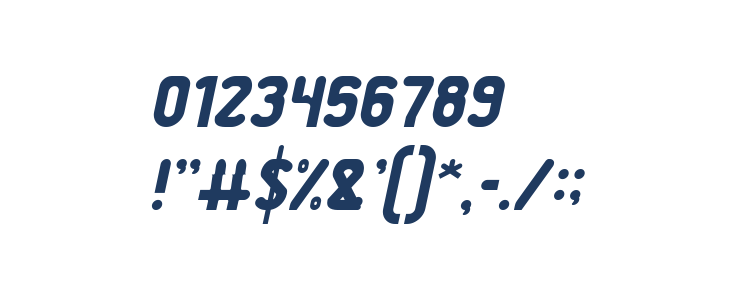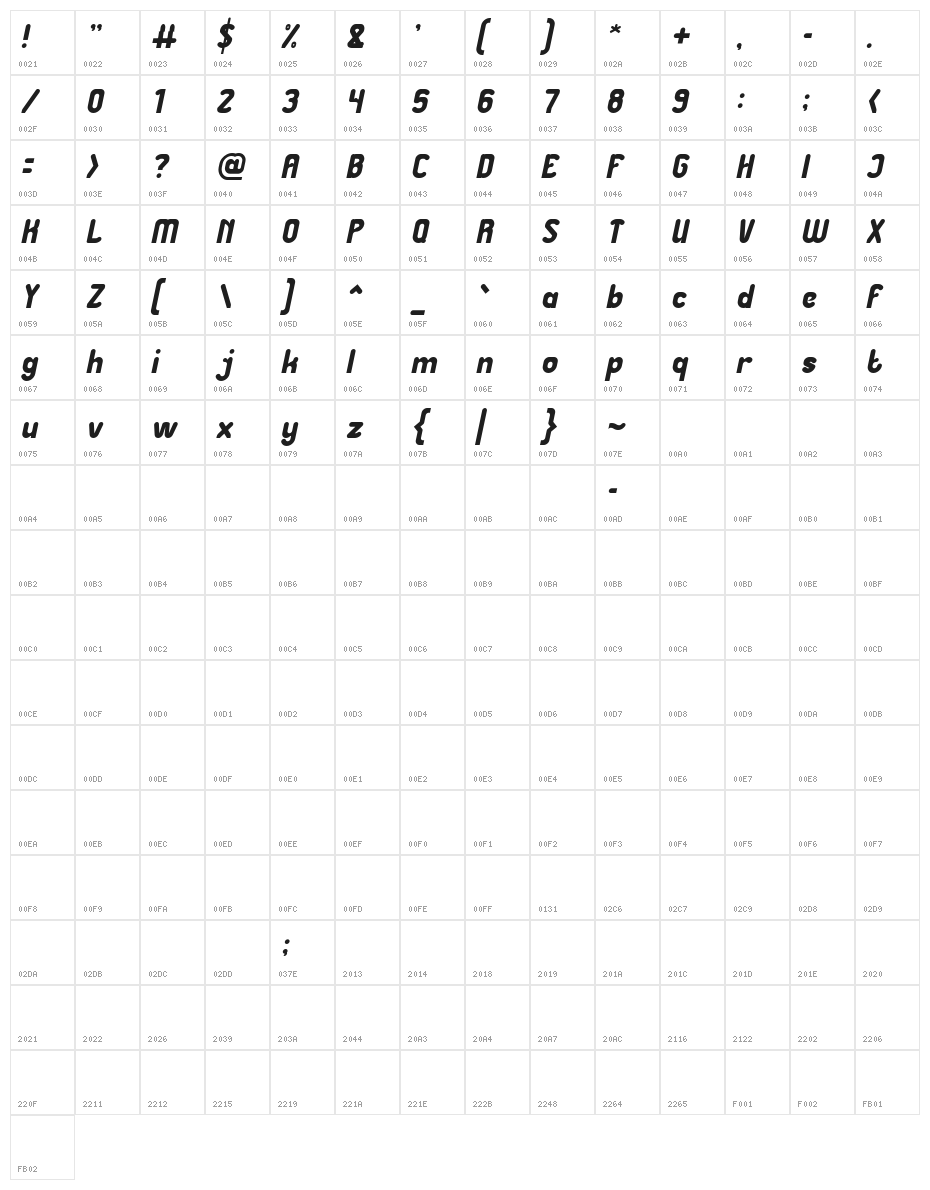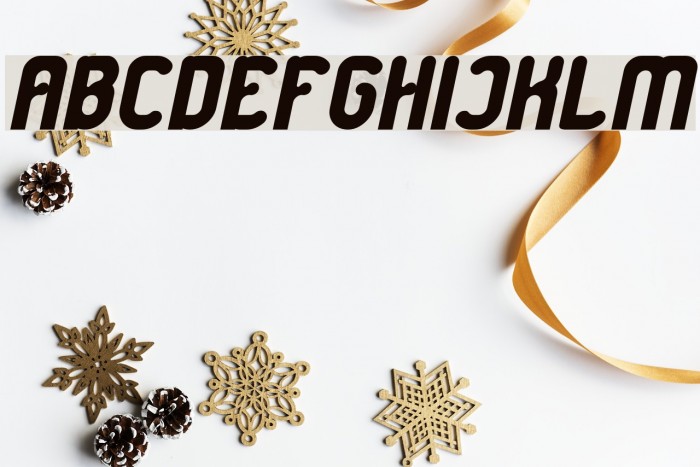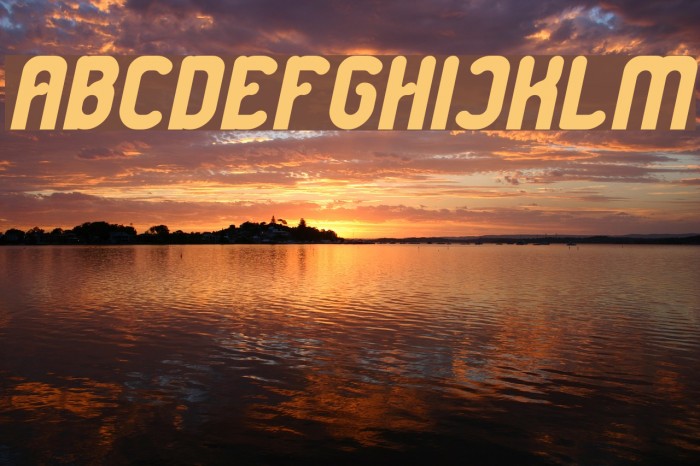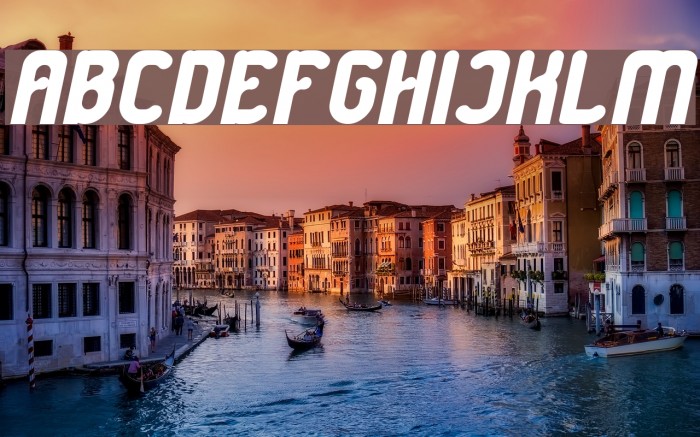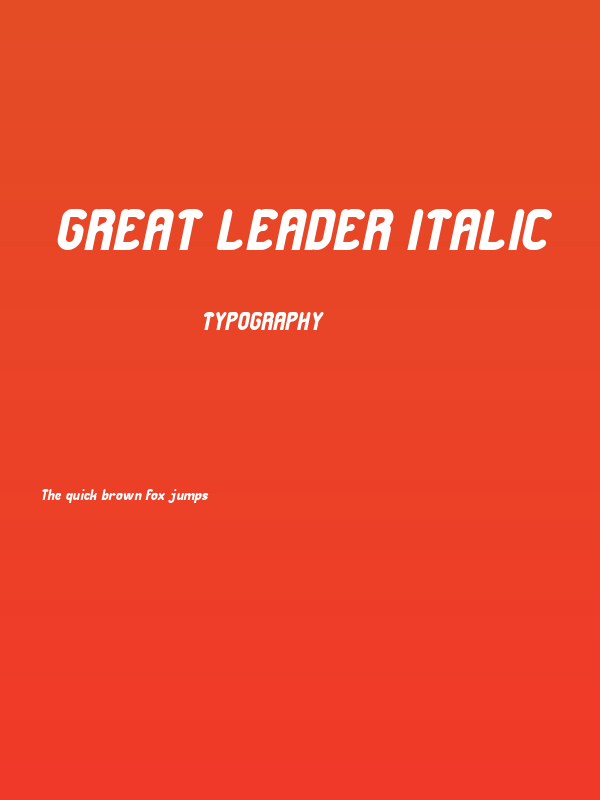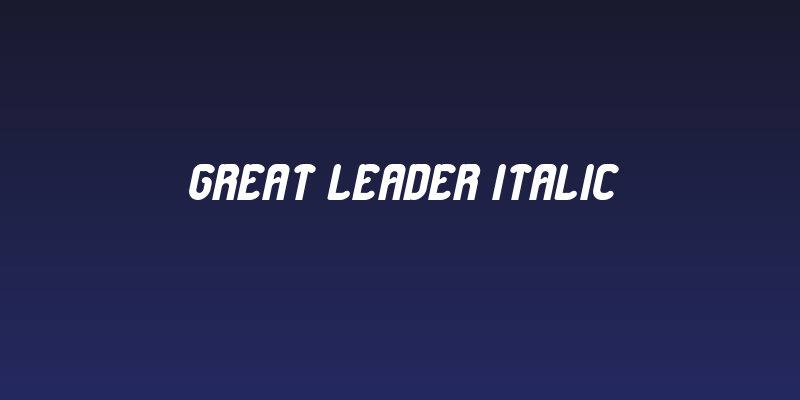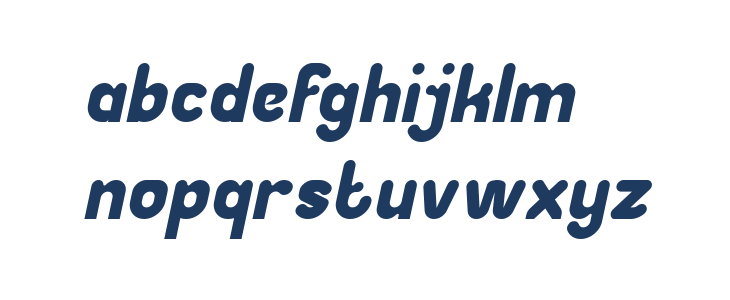
Great Leader Italic Font
Great Leader Italic Description
This font features a bold and dynamic style with a distinct italic slant, giving it a sense of movement and energy. The characters are rounded and slightly condensed, providing a modern and approachable feel. The uppercase and lowercase letters maintain a consistent style, with smooth curves and a uniform stroke width that enhances readability. The numerals and special characters are designed to match the overall aesthetic, ensuring a cohesive look across all text elements. This font's boldness and unique style make it suitable for a variety of creative applications.
| Proposed Projects | Ideal for branding, posters, headlines, and any project requiring a bold, modern look. |